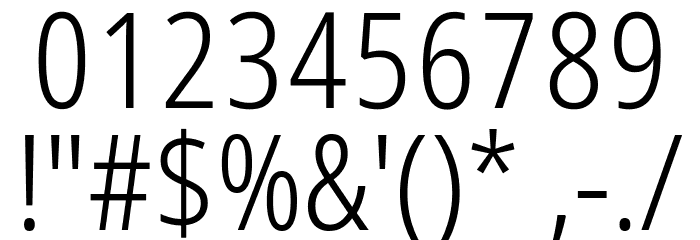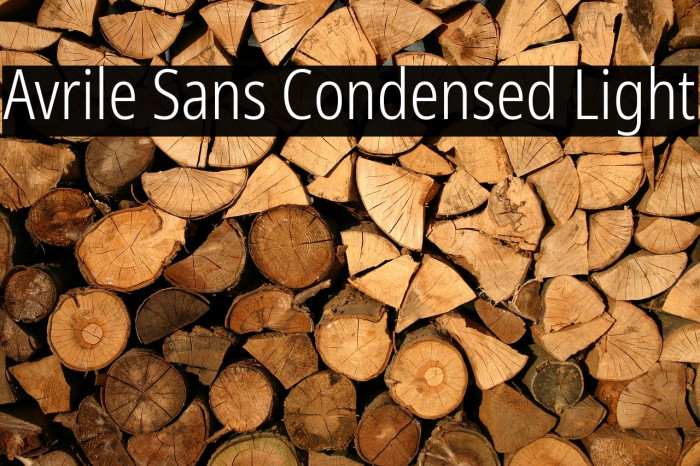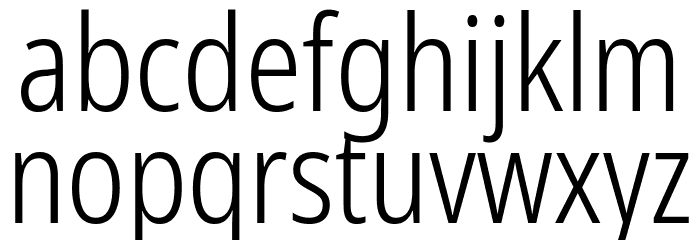
Avrile Sans Condensed Light Font
Avrile Sans Condensed Light Description
This font features a clean and modern sans-serif design with a condensed structure, making it ideal for space-saving applications. The characters are evenly spaced with a light weight, offering a sleek and minimalist appearance. The uniform stroke width contributes to a low contrast, enhancing readability while maintaining a contemporary aesthetic. The font's simplicity and elegance make it versatile for various design needs.
| Proposed Projects | Ideal for branding, editorial design, web design, and user interfaces where a clean and modern look is desired. |